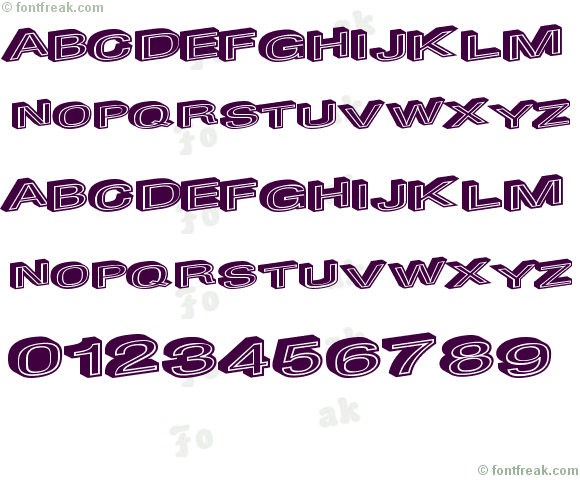
MakeImpact
About MakeImpact
MakeImpact is a striking display typeface designed by XEROGRAPHER FONTS in 2012, available under a freeware license. This font is characterized by its bold, attention-grabbing strokes that create a strong visual impact, making it perfect for projects that require immediate attention. The font features a unique, slightly italicized slant, which lends it a dynamic and energetic feel. The stroke weight is substantial, providing excellent legibility even from a distance, while the spacing between letters is thoughtfully designed to maintain clarity without sacrificing its bold aesthetic.
Best suited for a variety of creative applications, the MakeImpact font shines in contexts such as movie posters, where its dramatic presence can effectively convey the theme of a film. It's also ideal for promotional materials, like flyers and banners, where grabbing customer attention is paramount. Additionally, this font works well on restaurant menus, giving a modern and inviting look that can enhance a dining experience. Small business owners looking to establish a unique brand identity will find it particularly useful for logos and branding materials that need to stand out. Content creators can also leverage this font for social media graphics, ensuring that their posts capture the audience's eye instantly.
The target audience for MakeImpact includes graphic designers, small business owners, and content creators who seek a versatile and impactful font. Its ability to combine boldness with a contemporary feel makes it an appealing choice for various design needs. The MakeImpact font free download offers an exciting opportunity for those looking to enhance their projects with a distinctive typeface that commands attention and leaves a lasting impression. This font stands out in its ability to convey messages with clarity and style, making it a valuable addition to any designer's toolkit.